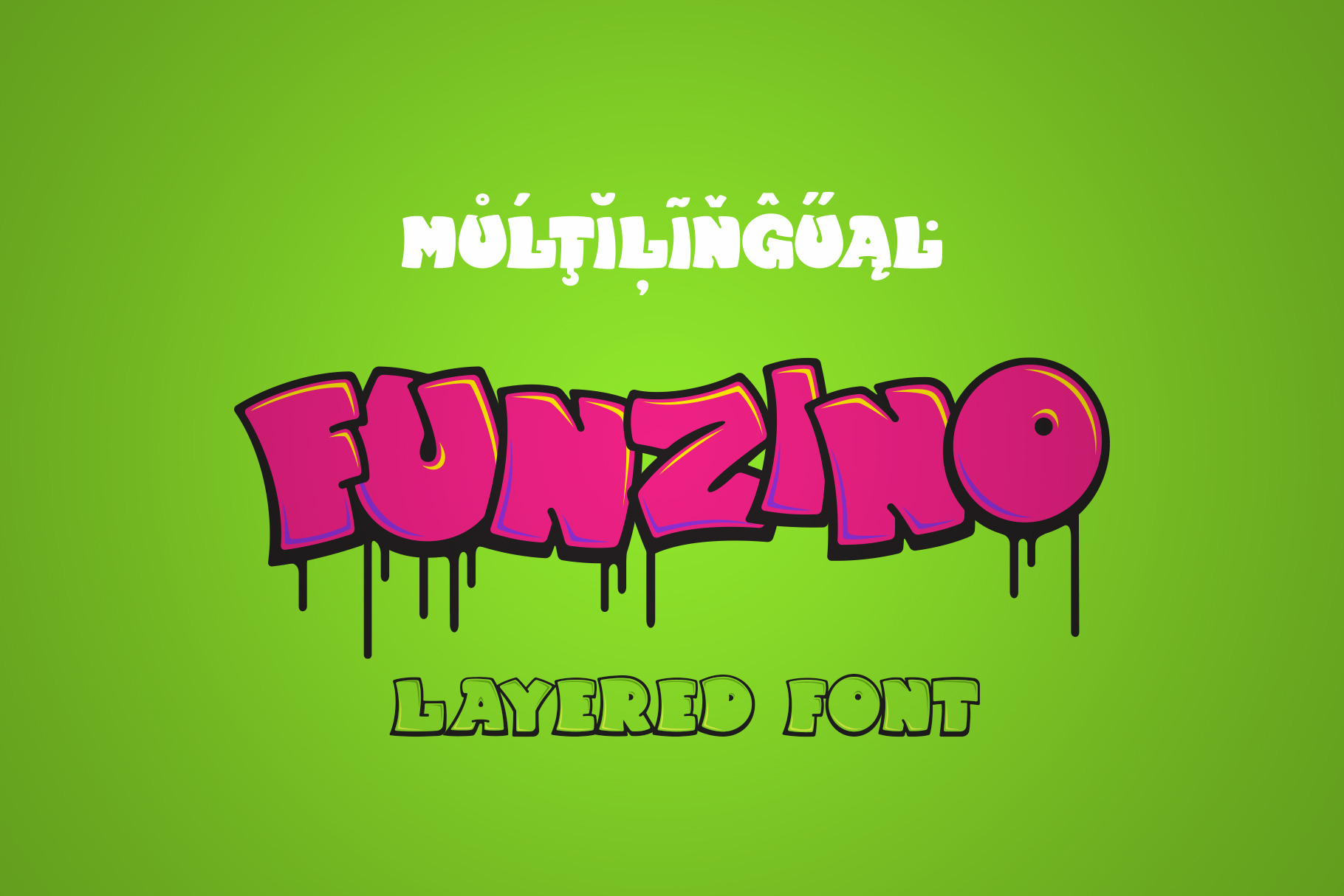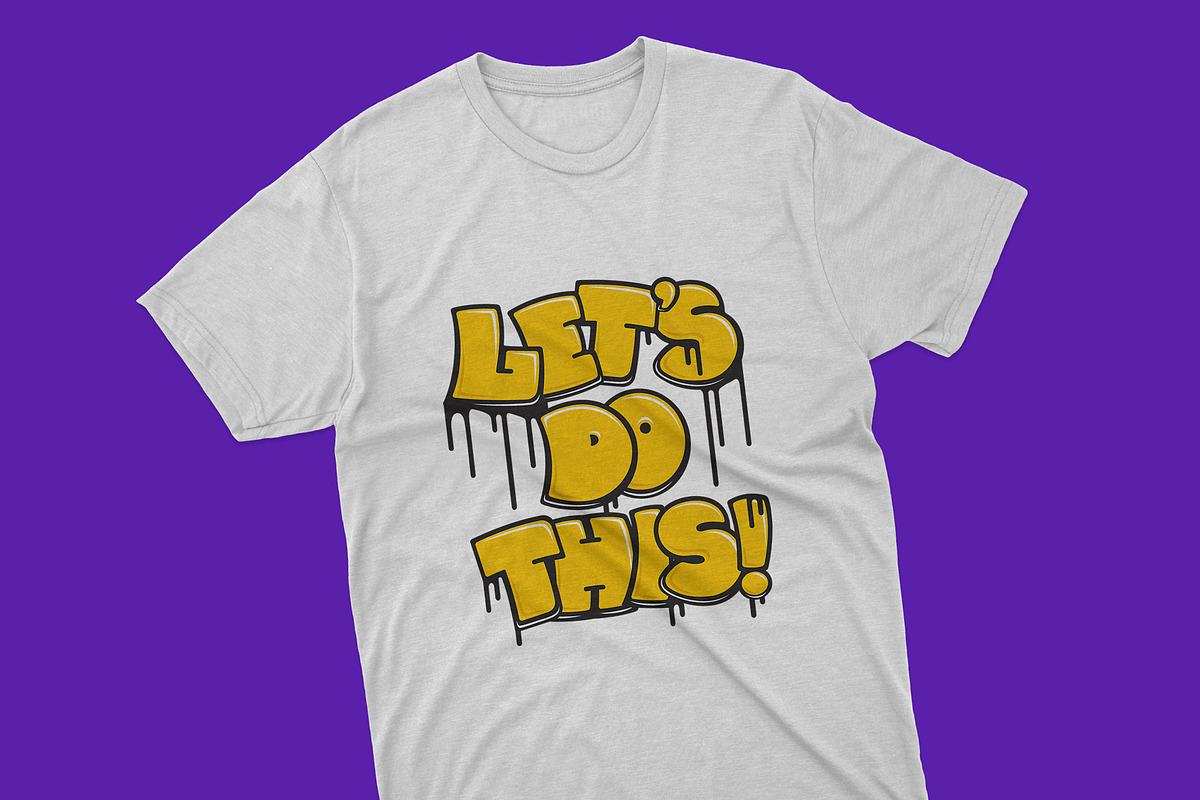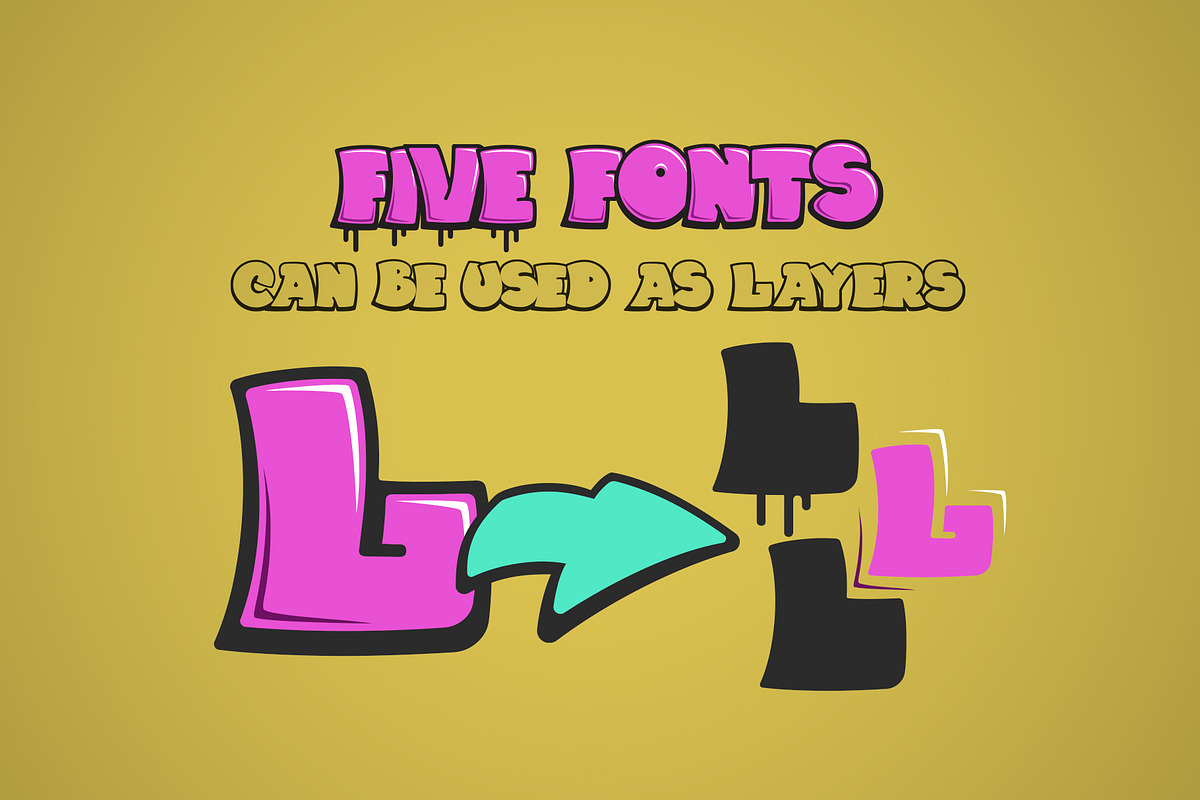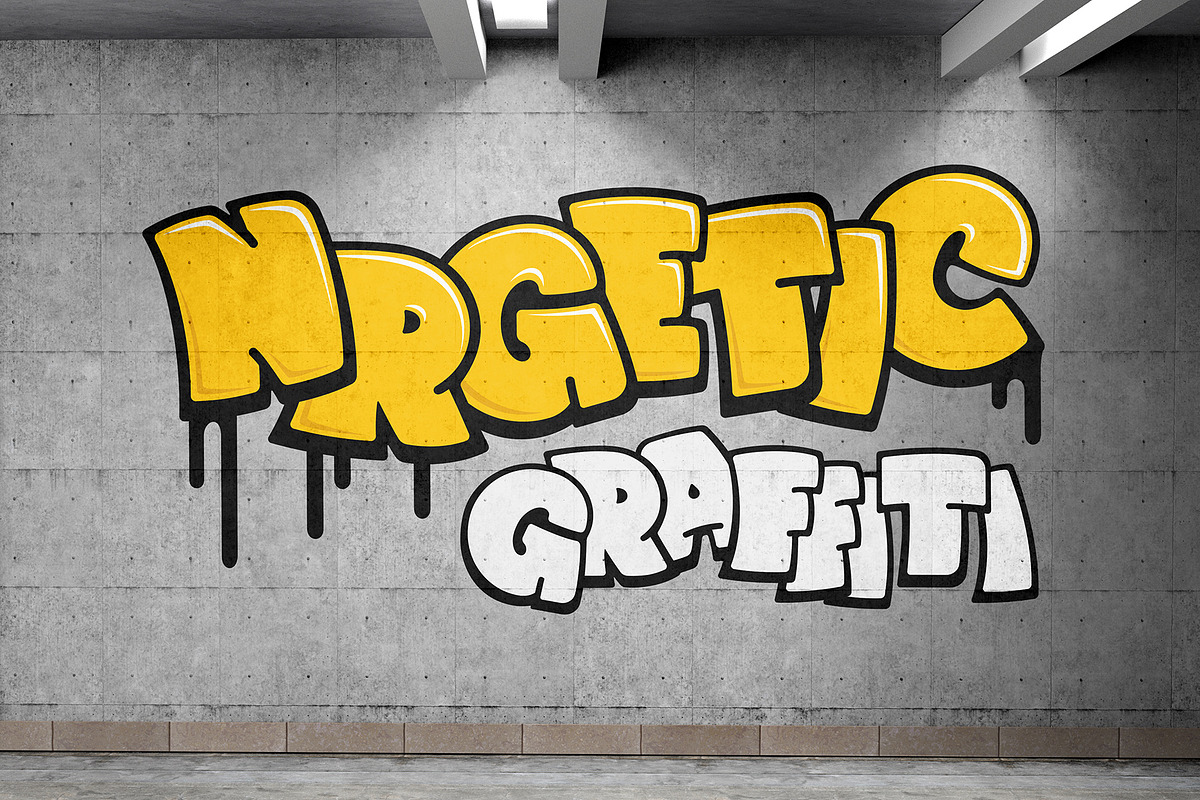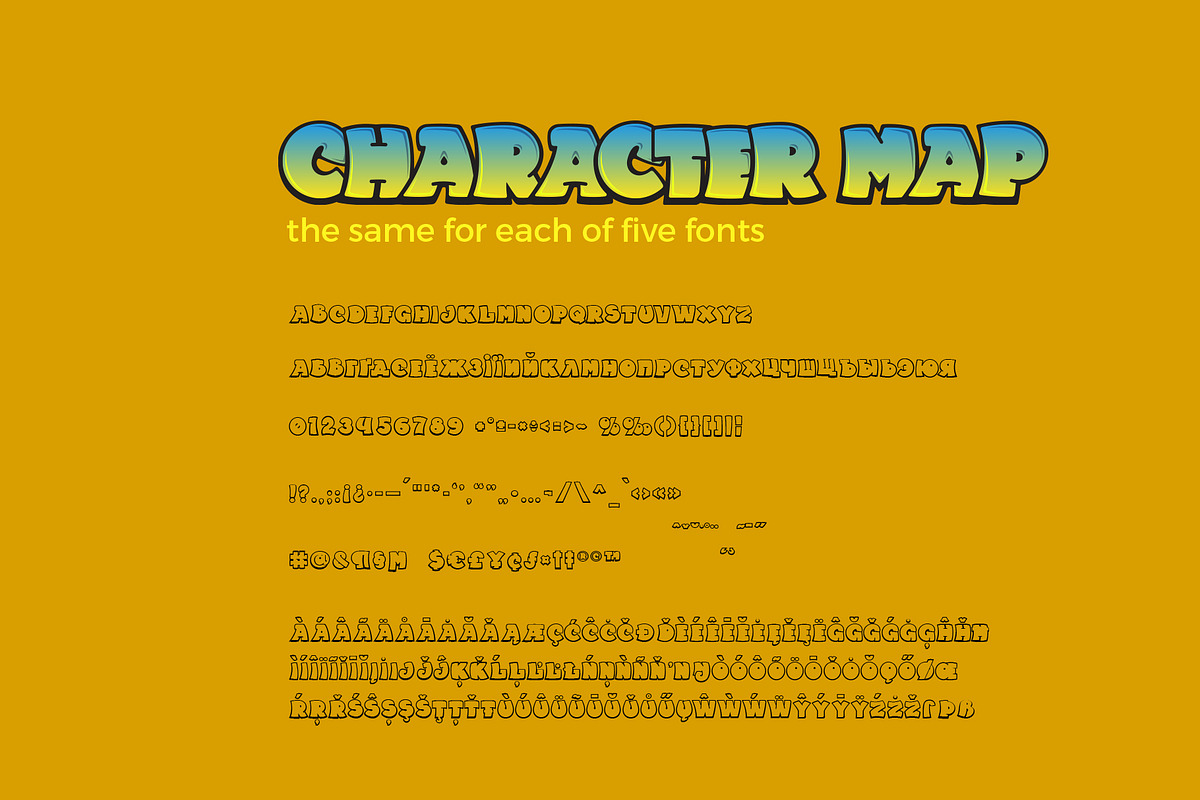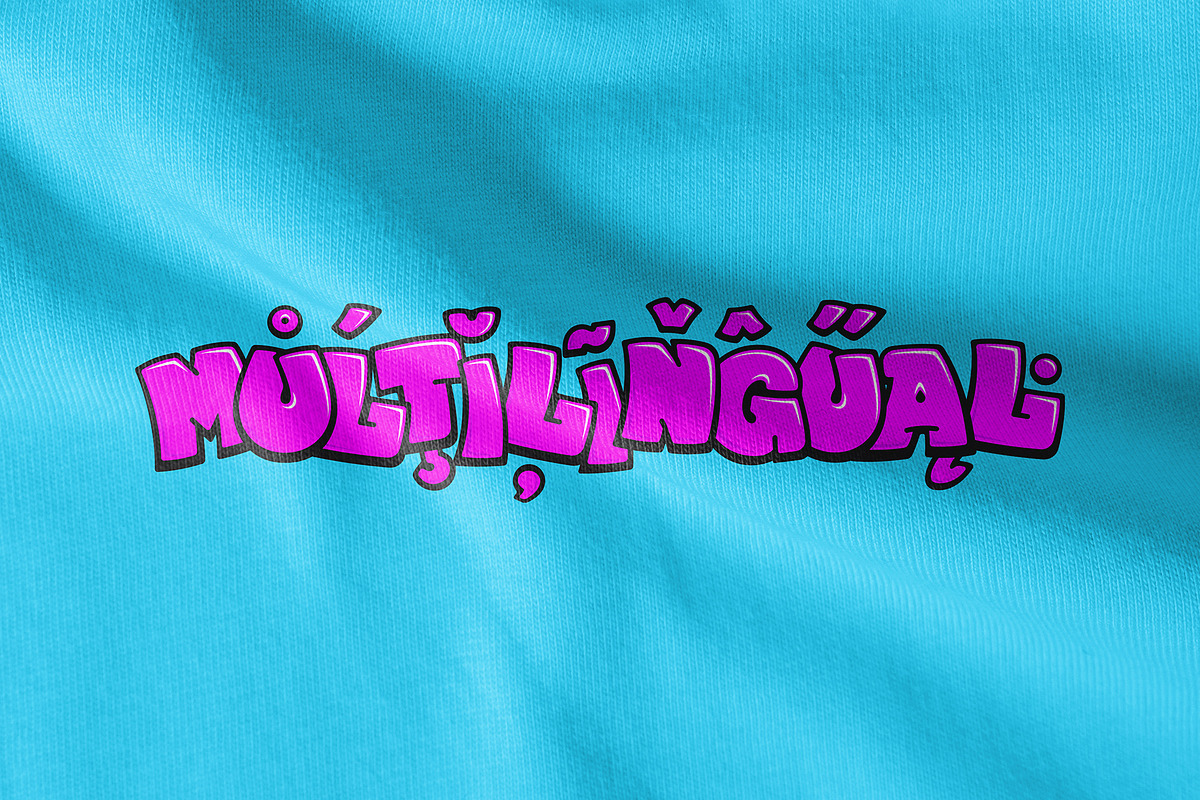
Funzino Graffiti Layered Font
Funzino is friendly graffiti style layered font (5 font-layers) designed for such areas as Entertainment, Kids, Prints, Food etc. You may combine these layers to make new and interesting font combinations.
Multilingual support (LatinPro & Cyrillic).
Supported Languages: Bosnian, Catalan, Czech, Danish, German, English, Spanish, Estonian, Finnish, French, Irish, Croatian, Hungarian, Icelandic, Italian, Lithuanian, Latvian, Maltese, Norwegian, Polish, Portuguese, Romanian, Slovak, Slovenian, Albanian, Swedish, Turkish, Ukrainian, Russian.